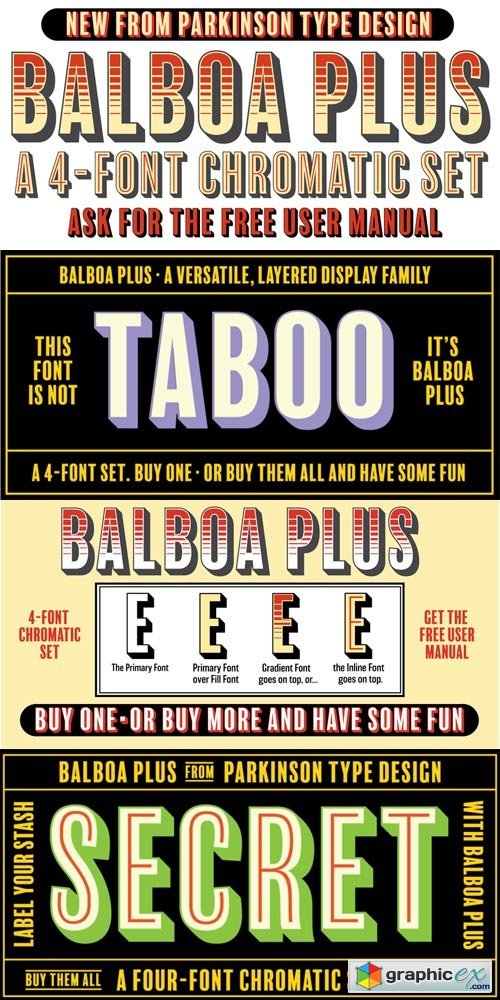
Download Balboa Font Free - Web balboa w01 bold fonts free download. Web explore balboa designed by jim parkinson at adobe fonts. A sans serif typeface with 9 styles, available from adobe fonts for.
Web explore balboa designed by jim parkinson at adobe fonts. A sans serif typeface with 9 styles, available from adobe fonts for. Web balboa w01 bold fonts free download.
A sans serif typeface with 9 styles, available from adobe fonts for. Web explore balboa designed by jim parkinson at adobe fonts. Web balboa w01 bold fonts free download.
Web explore balboa designed by jim parkinson at adobe fonts. Web balboa w01 bold fonts free download. A sans serif typeface with 9 styles, available from adobe fonts for.
A sans serif typeface with 9 styles, available from adobe fonts for. Web explore balboa designed by jim parkinson at adobe fonts. Web balboa w01 bold fonts free download.
A sans serif typeface with 9 styles, available from adobe fonts for. Web balboa w01 bold fonts free download. Web explore balboa designed by jim parkinson at adobe fonts.
A sans serif typeface with 9 styles, available from adobe fonts for. Web explore balboa designed by jim parkinson at adobe fonts. Web balboa w01 bold fonts free download.
Web balboa w01 bold fonts free download. A sans serif typeface with 9 styles, available from adobe fonts for. Web explore balboa designed by jim parkinson at adobe fonts.
Web balboa w01 bold fonts free download. Web explore balboa designed by jim parkinson at adobe fonts. A sans serif typeface with 9 styles, available from adobe fonts for.
Web balboa w01 bold fonts free download. A sans serif typeface with 9 styles, available from adobe fonts for. Web explore balboa designed by jim parkinson at adobe fonts.
Web balboa w01 bold fonts free download. Web explore balboa designed by jim parkinson at adobe fonts. A sans serif typeface with 9 styles, available from adobe fonts for.
A sans serif typeface with 9 styles, available from adobe fonts for. Web explore balboa designed by jim parkinson at adobe fonts.